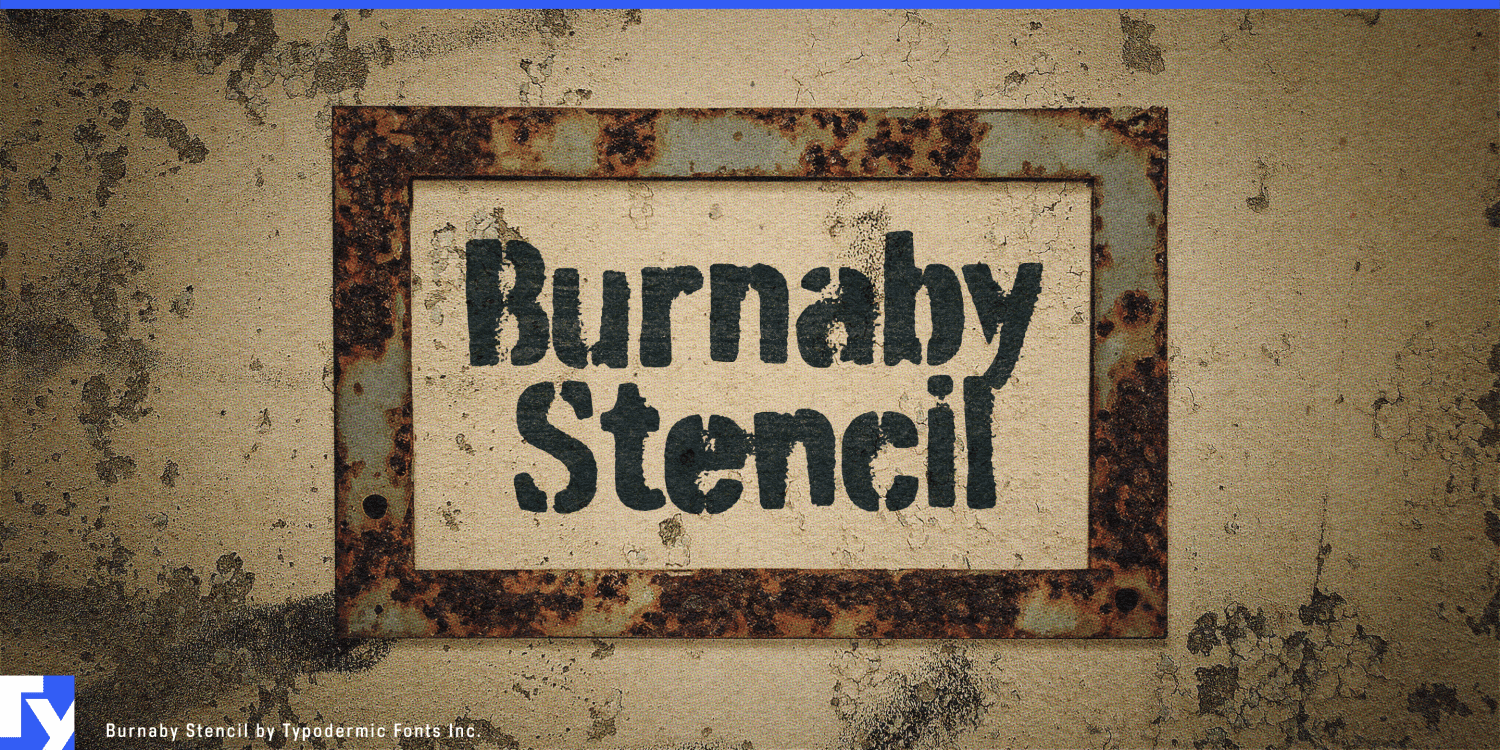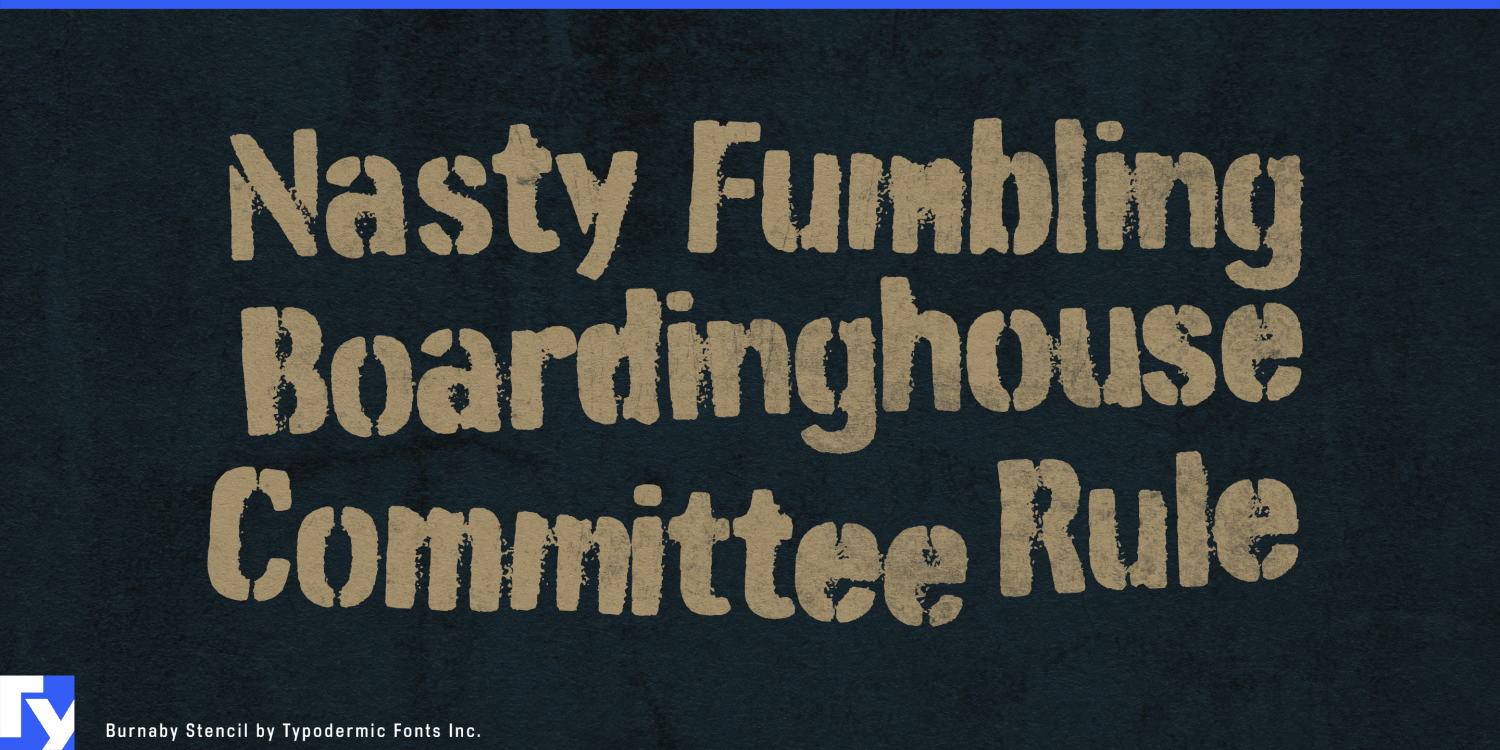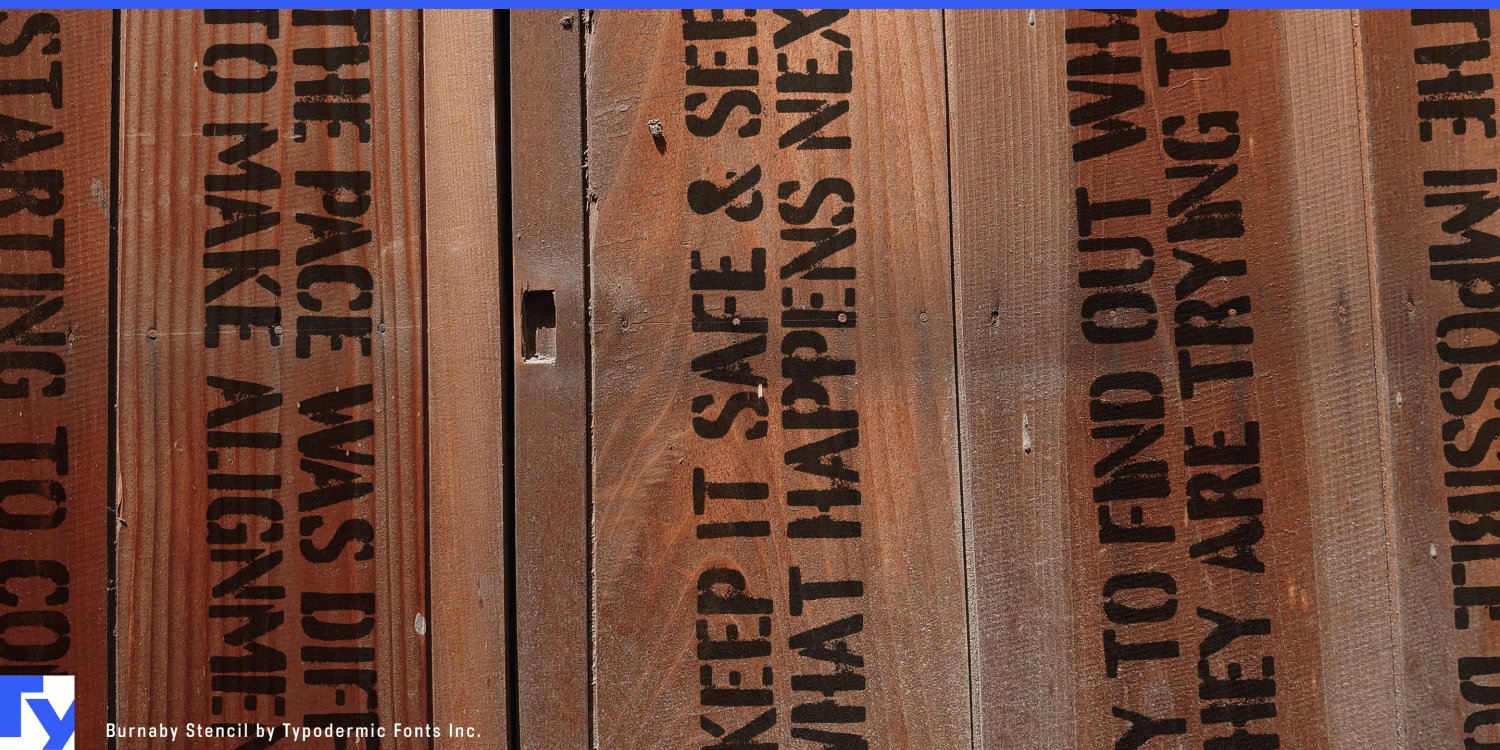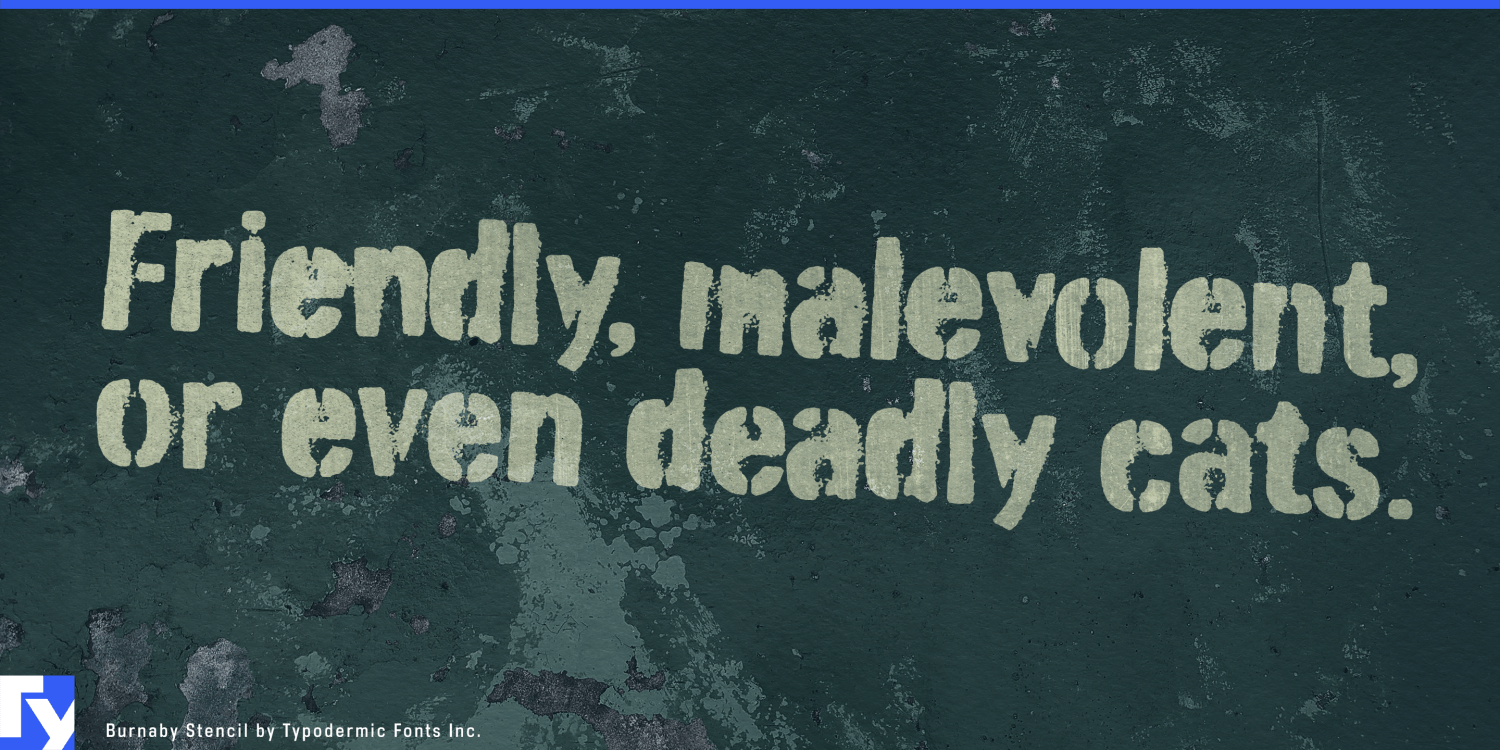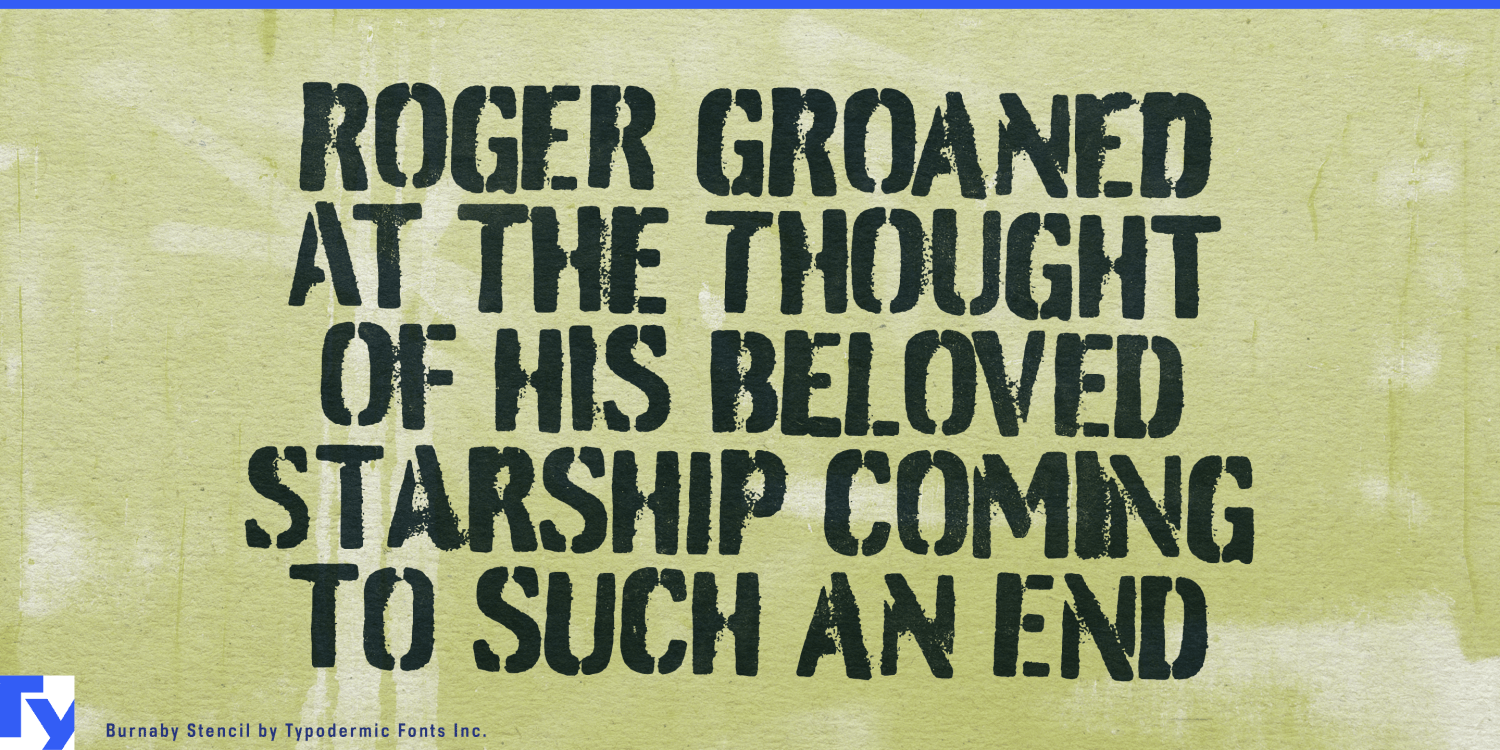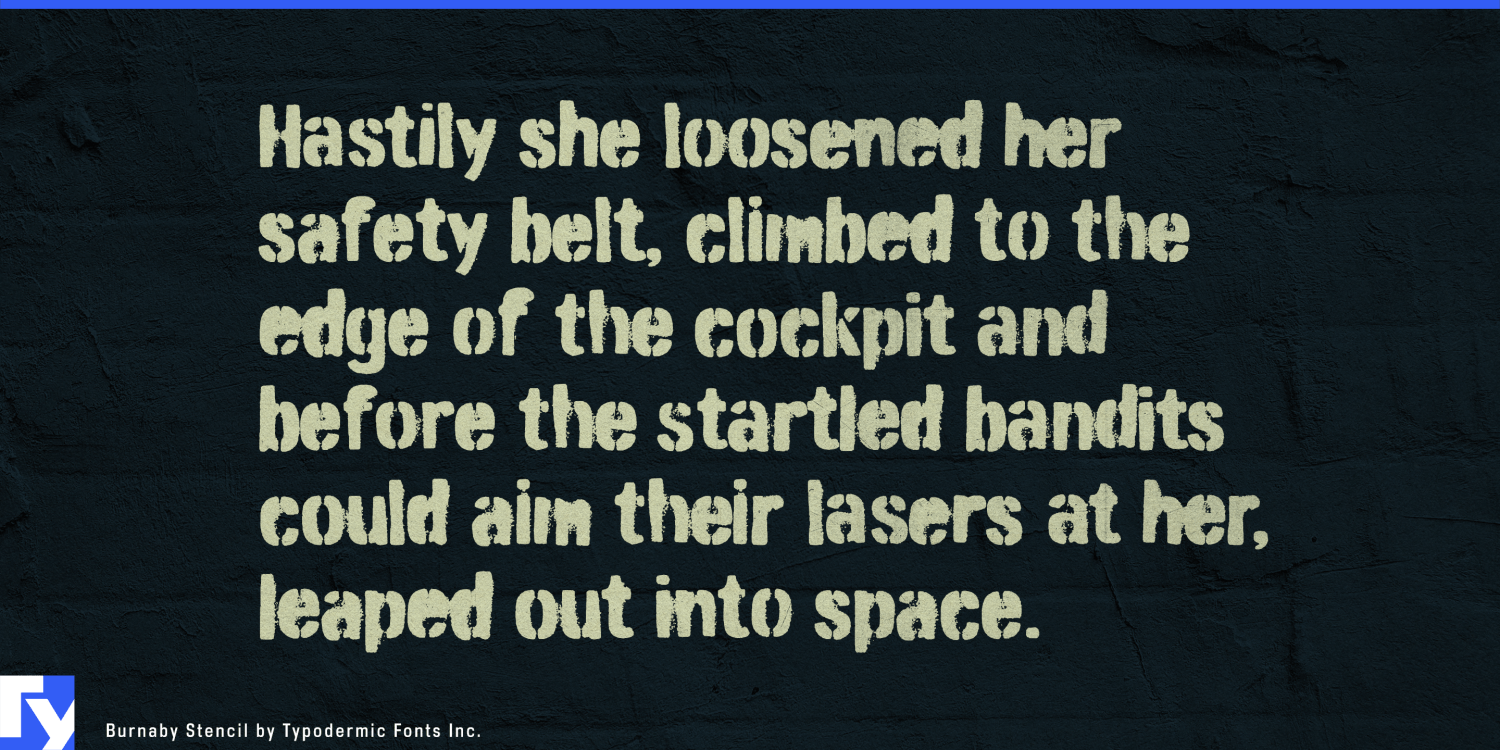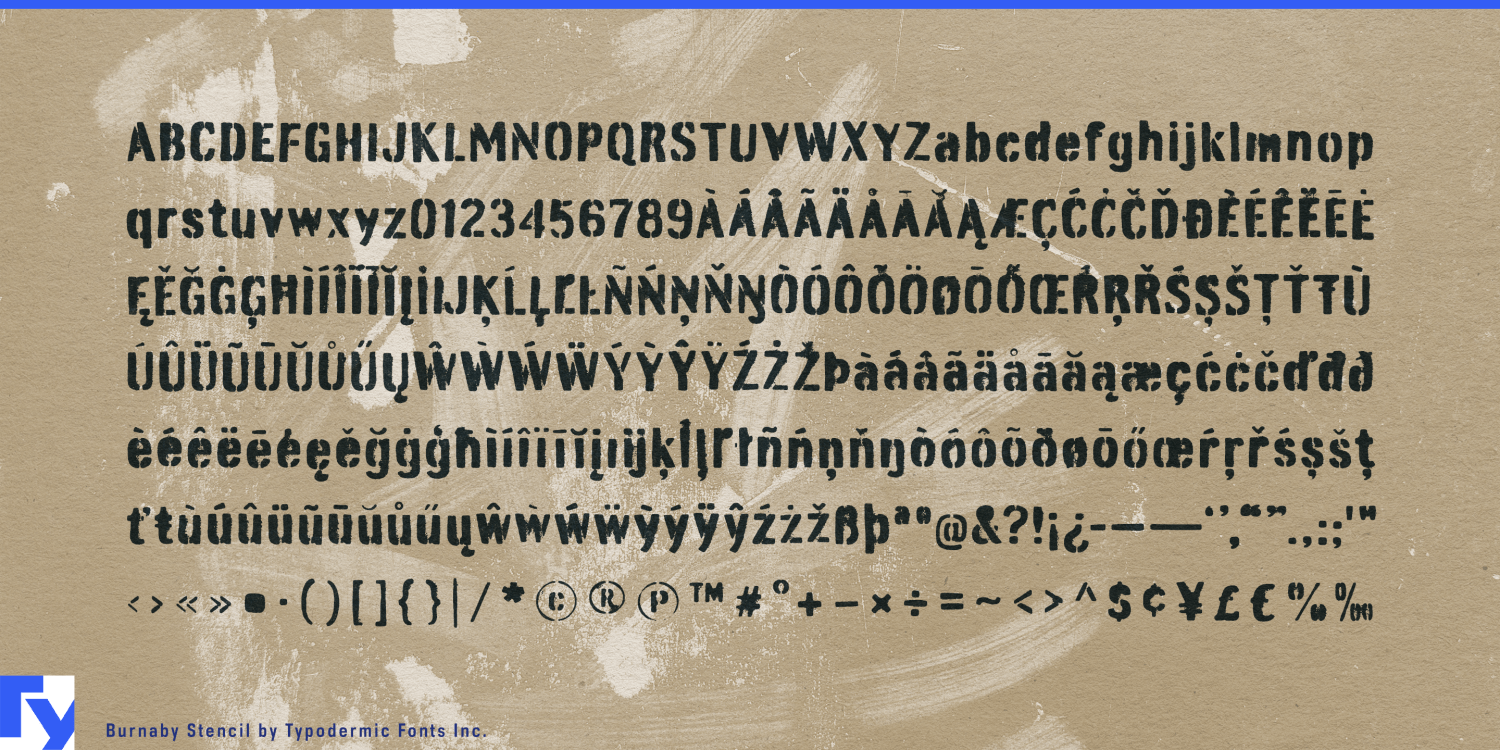
Burnaby Stencil
A finished identity sometimes has to communicate in an unfinished place. A redevelopment project may have polished renderings and carefully planned branding while the actual site is still plywood, concrete, temporary partitions and freight doors. Pristine corporate typography can feel pasted on; generic grunge can look like an effect. Burnaby Stencil gives a professional design system a convincing on-site voice.
Its compact, superelliptical forms were designed as stencil lettering from the outset. Uneven edges, incomplete coverage, soft bleed and overspray suggest paint applied quickly through a physical stencil, while alternate letter combinations help repeated textures feel less mechanical.
Construction and redevelopment are natural settings for Burnaby Stencil. It can carry project names and campaign headlines across hoarding, renovation partitions, opening-soon graphics, sales-centre installations and exhibitions documenting spaces in transition. Adaptive-reuse projects gain a similar advantage: warehouses, factories and utility buildings converted into offices, hospitality, housing or cultural spaces can use lettering that acknowledges patched surfaces and previous use without pretending to reproduce historic signage.
The same visual language extends to architectural salvage, material-reuse programs, reclaimed building products, protective equipment cases and workshop storage systems. Burnaby Stencil can handle program names, product families and campaign graphics while more utilitarian type takes care of safety information, specifications and detailed wayfinding.
Production design offers another strong role. Film, streaming productions, games and immersive attractions often need convincing typography for temporary compounds, abandoned facilities, storage zones, workshops, freight doors and improvised interiors. Burnaby Stencil can generate changing location names, instructions and environmental text while retaining the irregularity of sprayed lettering. Its mixed-case alphabet is especially useful when the setting calls for something less formal than rows of military capitals.
Burnaby Stencil is less about destruction than incompletion. It suits typography that appears to have been made while a place was being built, converted, dismantled or temporarily occupied; controlled enough to remain part of the design system, rough enough to look as though somebody actually brought the stencil and paint to the site.